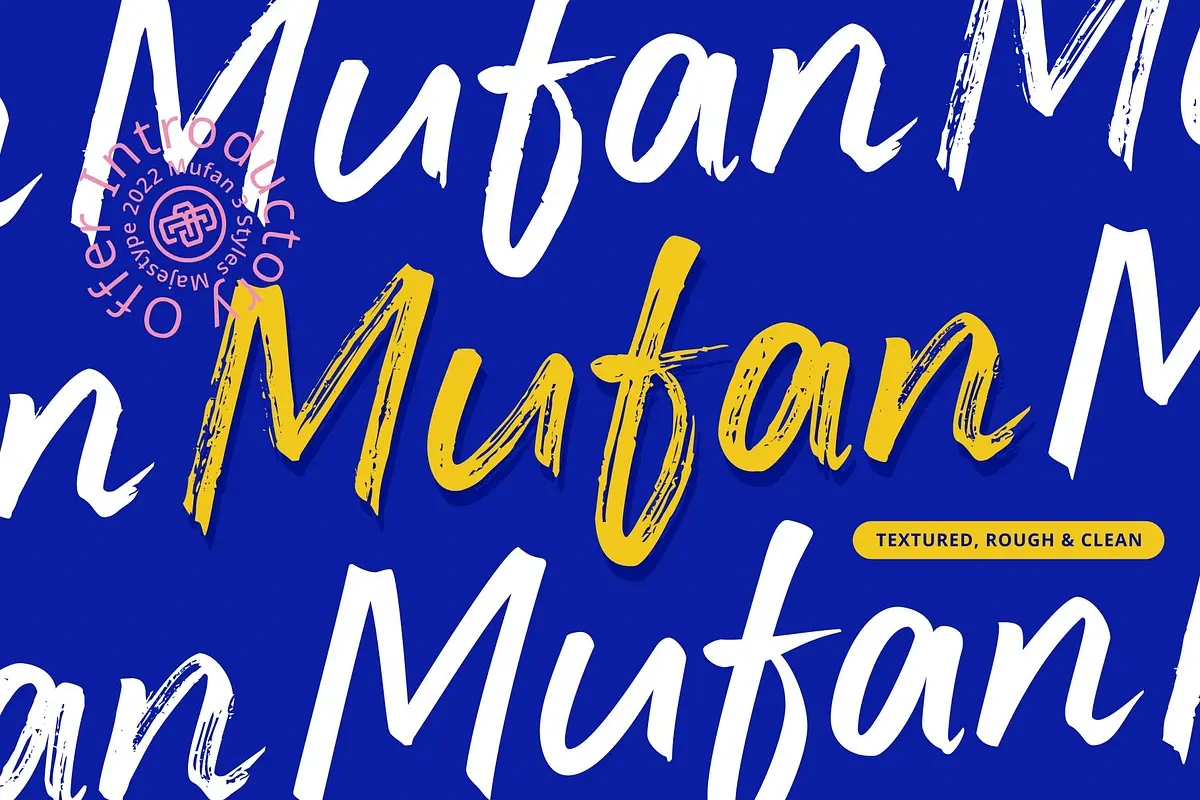
Mufan - Brush Retro Calligraphy Font Free Download
Mufan - Brush Retro Calligraphy Font Free Download is a stylish and expressive typeface that blends retro vibes with a modern brush script feel. Its bold, fluid strokes and distinctive character make it perfect for logos, branding, posters, invitations, product packaging, and any design that needs a creative, vintage touch.
Inspired by the golden age of calligraphy, Mufan brings a handcrafted, artistic flair to your projects while maintaining high readability. The font includes uppercase and lowercase letters, punctuation, multilingual support, and works seamlessly on both Mac and Windows systems.